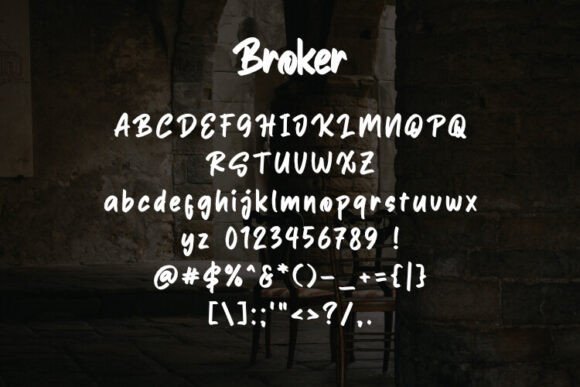
Introducing Broker Font: Elevate Your Designs with Versatility and Style
In the realm of typography, few fonts manage to strike a balance between versatility, style, and adaptability. However, the Broker Font stands out as a beacon of innovation, designed to breathe life into clothing, t-shirt, and various product designs. This comprehensive guide will explore the nuances of the Broker font, its applications, and why it has become a go-to typeface for designers seeking to add a sophisticated touch to their creative projects.
The Essence of Broker Font
The Broker Font is more than just a typeface; it’s an extension of your creative spirit. Its design is centered around providing a versatile and stylish look that can seamlessly integrate into any design or software. Whether you’re working on a clothing line, a t-shirt design, or any product that requires typography, the Broker font is engineered to enhance your work with its unique flair.
Key Features of Broker Font
- Versatility: The Broker font is designed to be versatile, making it suitable for a wide range of applications, from fashion designs to digital marketing materials.
- Style: With its stylish and modern look, the Broker font adds a touch of sophistication to any design, making it stand out in a crowded marketplace.
- Adaptability: One of the key features of the Broker font is its adaptability. It can fit seamlessly into any design or software, ensuring that your creative project maintains a cohesive look.
Applications of Broker Font
The Broker font’s adaptability and style make it an excellent choice for a variety of applications. Here are some of the most notable uses:
- Clothing and T-Shirt Designs: The stylish and modern look of the Broker font makes it perfect for clothing and t-shirt designs. It can add a unique touch to your fashion line, making it more appealing to potential customers.
- Product Designs: Beyond clothing, the Broker font can be used in various product designs, including packaging, posters, and advertisements. Its versatility ensures that it can complement any product design, enhancing its visual appeal.
- Digital Marketing Materials: In the digital realm, the Broker font can be used in social media posts, website headers, and digital advertisements. Its modern look can help brands stand out in a crowded digital landscape.
Why Choose Broker Font?
With so many fonts available, why should you choose the Broker font for your designs? Here are a few compelling reasons:
- Uniqueness: The Broker font offers a unique style that can set your designs apart from the competition. In a world where standing out is crucial, the Broker font can be a game-changer.
- Quality: The font is designed with high-quality typography in mind, ensuring that it looks great in any size or application.
The Broker Font is a versatile and stylish typeface that can elevate your designs to new heights. Its adaptability, style, and ease of use make it an excellent choice for designers looking to add a sophisticated touch to their creative projects. Whether you’re working on clothing designs, product designs, or digital marketing materials, the Broker font is sure to enhance your work with its unique flair.
In conclusion, the Broker font is not just a font; it’s an extension of your creative spirit. It’s a tool that can help you bring your ideas to life, providing a fresh and modern look that can set your designs apart. So, if you’re looking for a typeface that combines versatility, style, and adaptability, look no further than the Broker font.